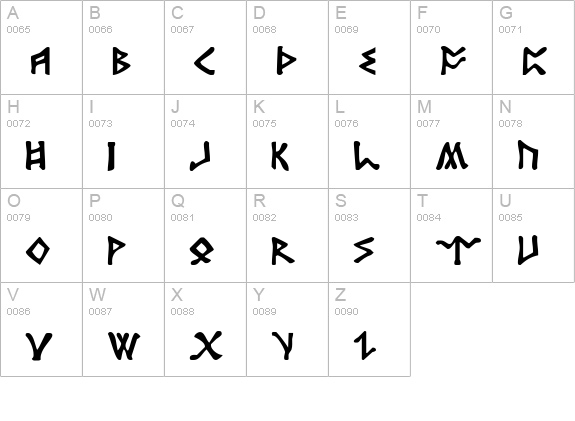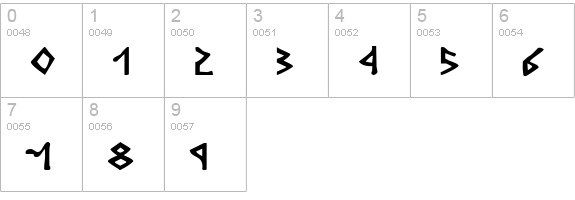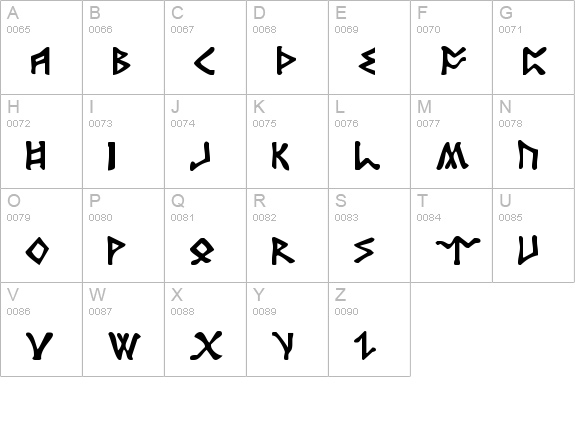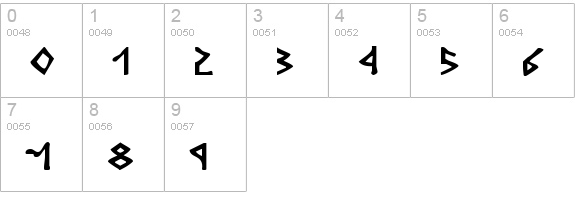
Rosicrucian Font Details
The Rosicrucian font is a beautifully crafted typeface that exudes elegance and sophistication. Its intricate details and timeless appeal make it a perfect choice for projects that require a touch of class and refinement. The Rosicrucian font is not only visually stunning but also versatile, suitable for a wide range of design applications. Best of all, the Rosicrucian font is available for free download at FontsMarket.com. This means you can easily access and use this stunning font in your projects without any cost. Don't miss out on this fantastic opportunity to enhance your designs with the Rosicrucian font - download it today and elevate your creations to the next level.